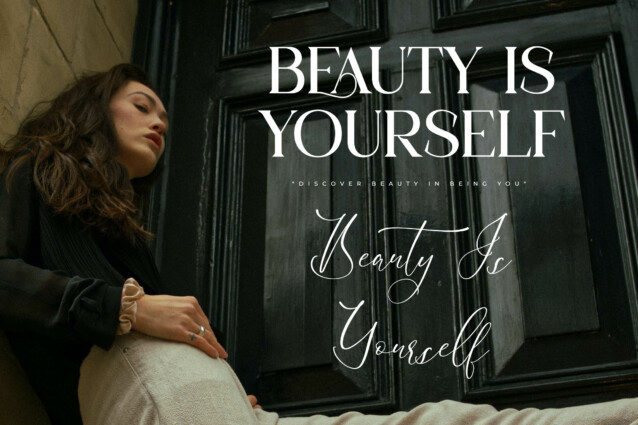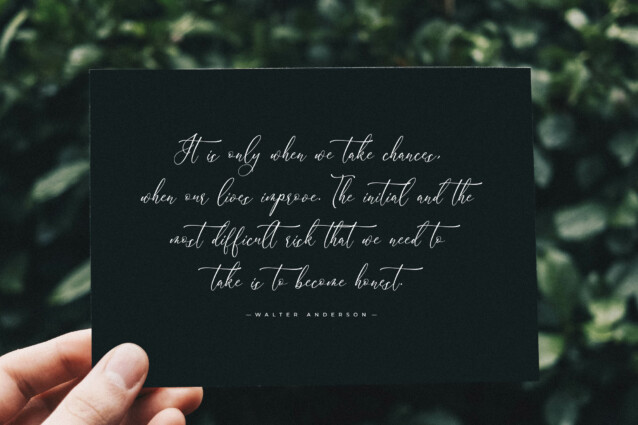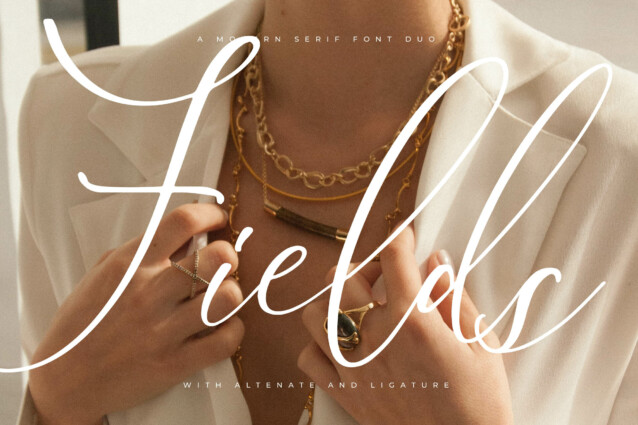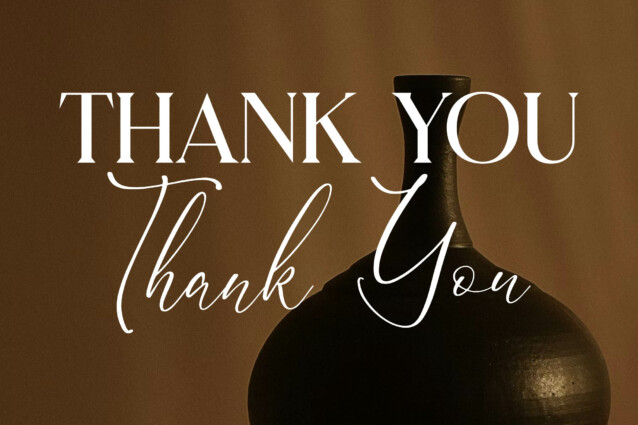
Calture Rowasn Font is a serif and script typeface that has own unique style & modern look. This typeface is perfect for an elegant & luxury logo, book or movie title design, fashion brand, magazine, clothes, lettering, quotes, and so much more.